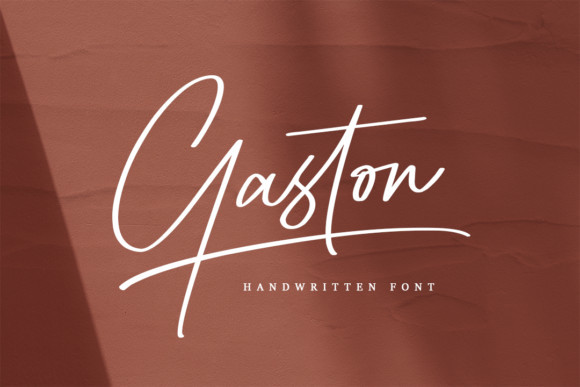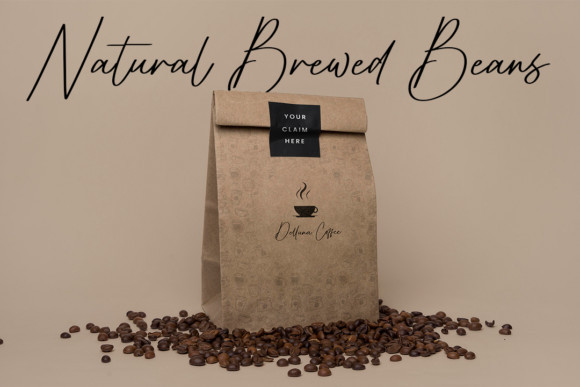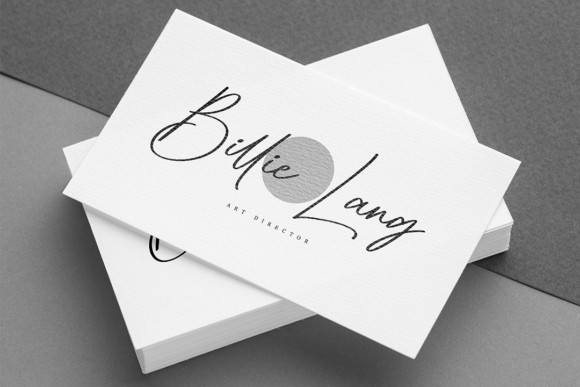
Gaston Font
Gaston is a stylish script font. It will add a luxury spark to any design project that you wish to create! This font is PUA encoded which means you can access all of the amazing glyphs and ligatures with ease!